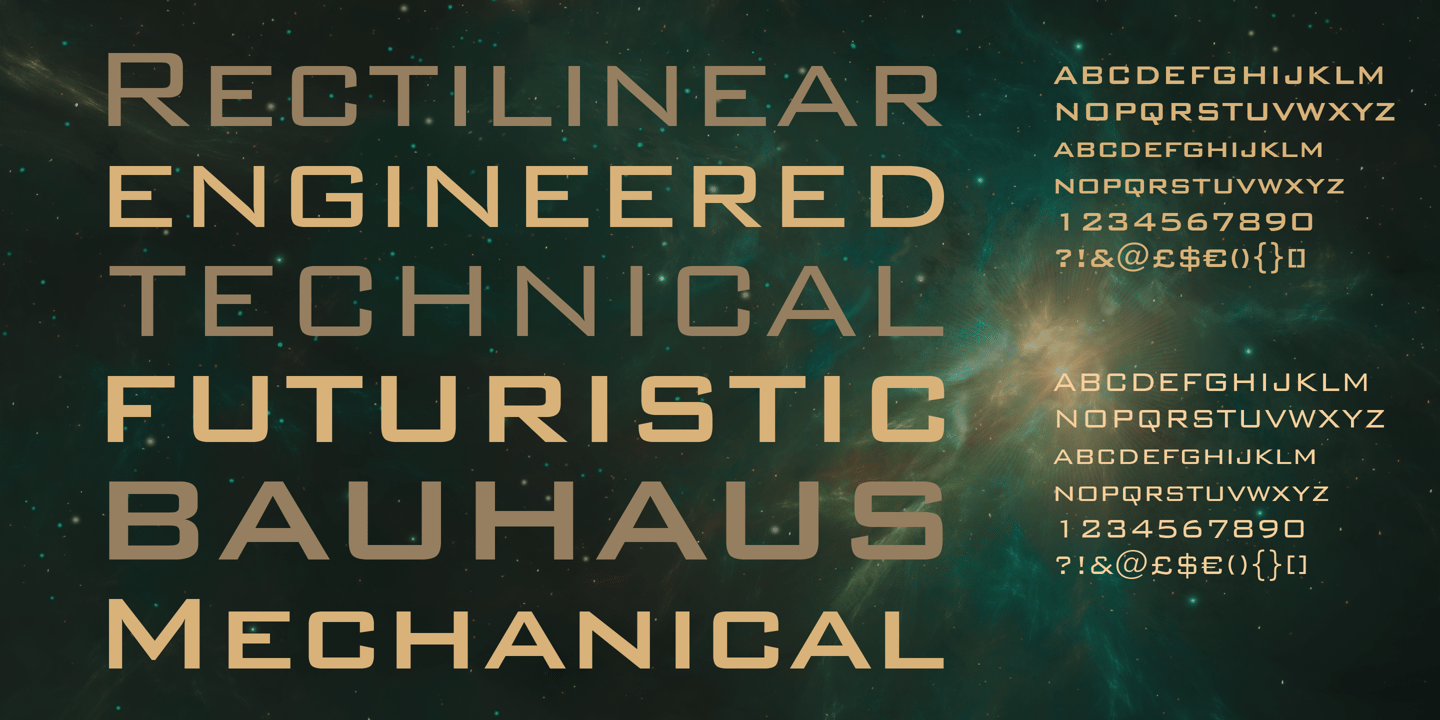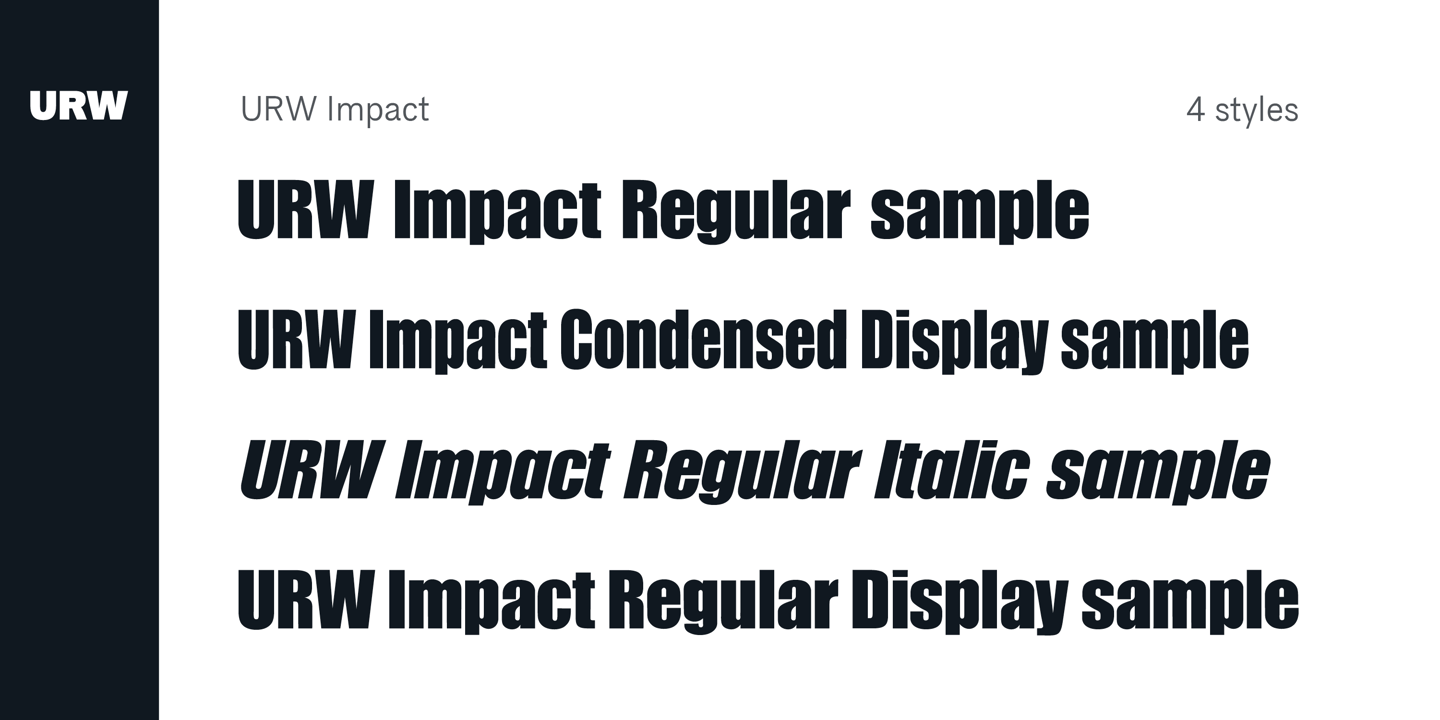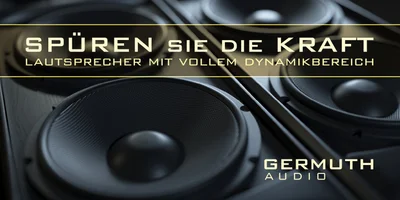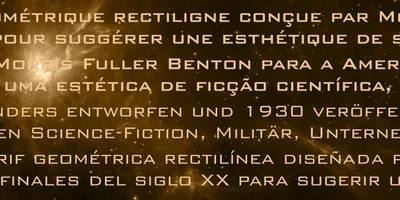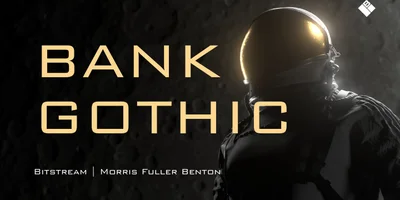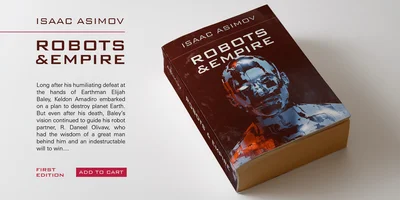
Bank Gothic vs Impact
Bank Gothic and Impact are both display typefaces sharing a signage foundation. Where Bank Gothic leans geometric, display, Impact brings condensed, bold. Compare which suits your Headlines project.
Design overlap:17%
| Feature | Bank Gothic | Impact |
| Classification | display | display |
| Language Support | latin, latin-extended | latin, latin-extended, cyrillic, greek |
| Source | Bitstream | Stephenson Blake |
Recommended: Bank Gothic
- geometric, display design character
- Suited for Sci Fi and Military
- From bitstream
Consider: Impact
- condensed, bold design character
- Suited for Advertising and Memes
- From stephenson-blake